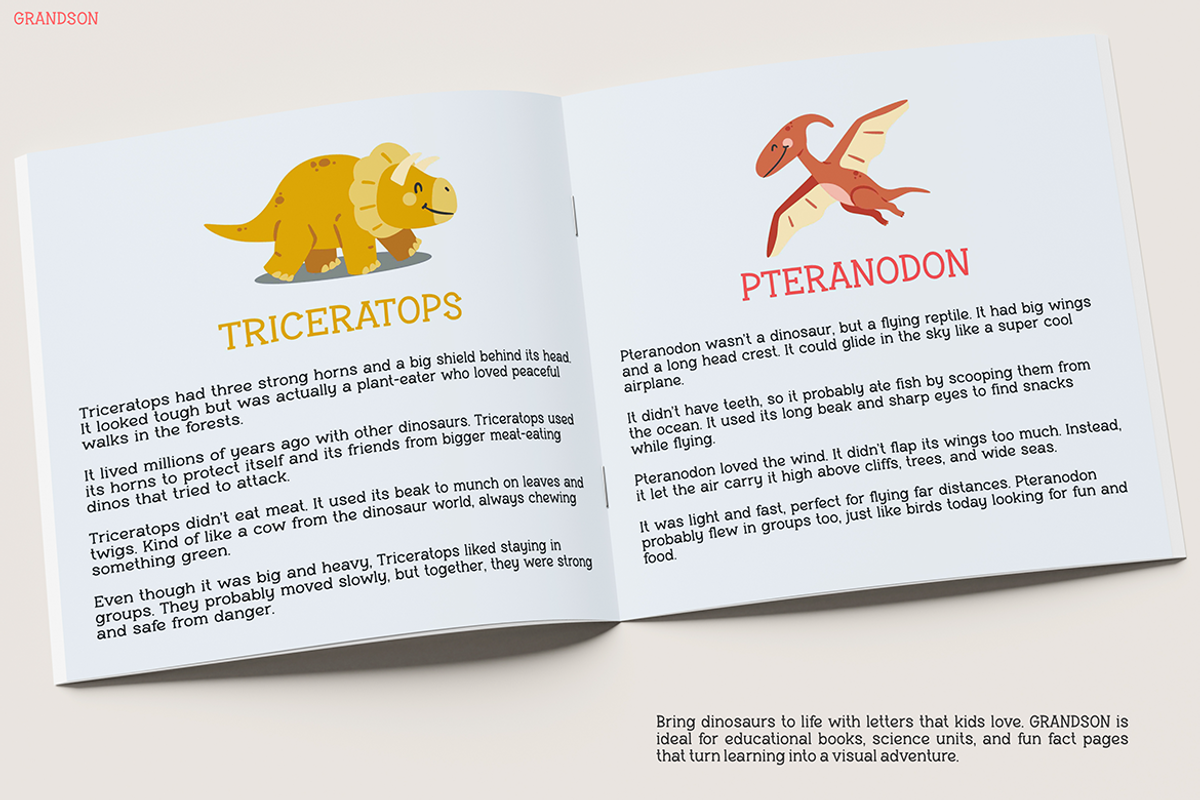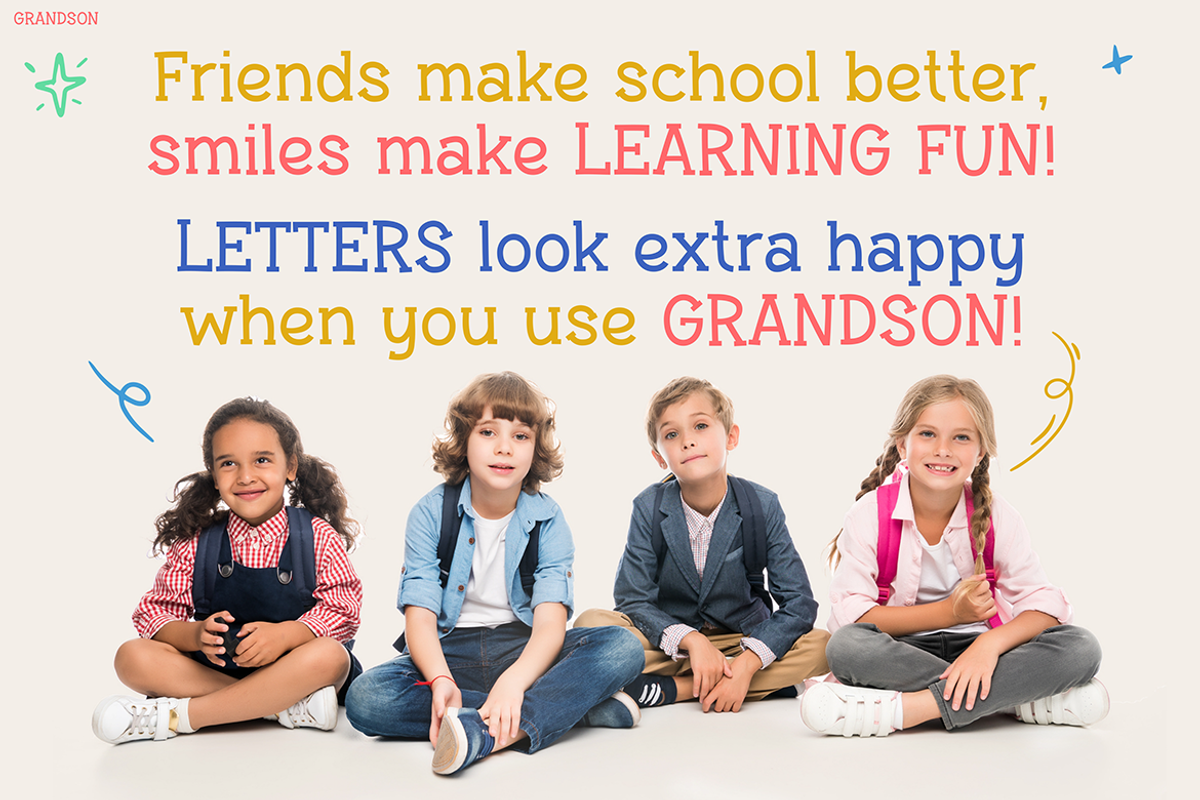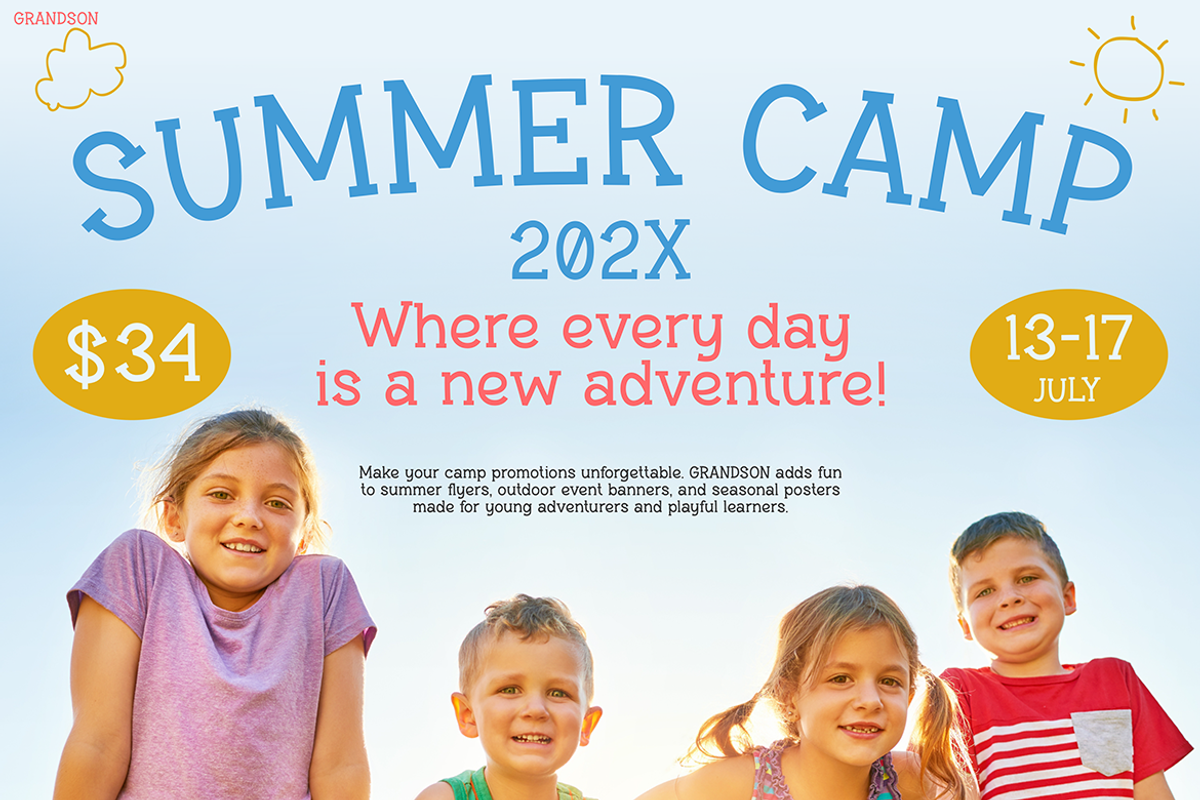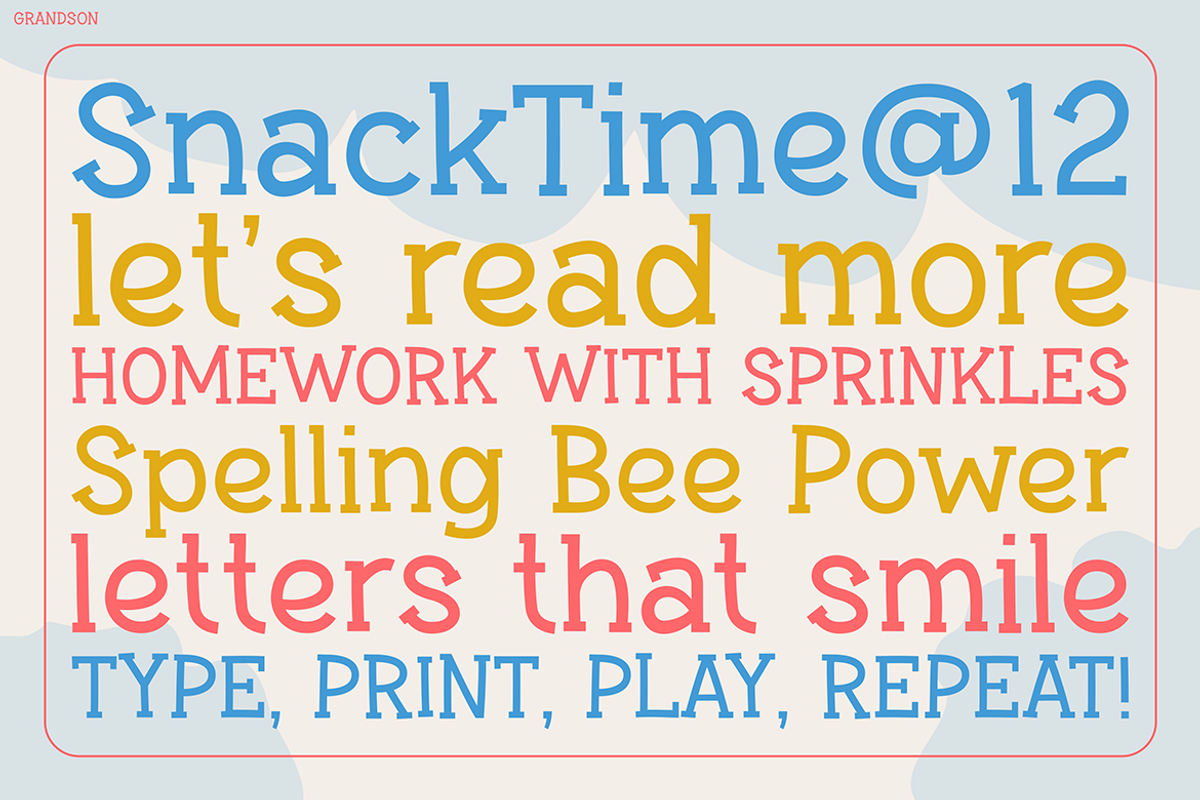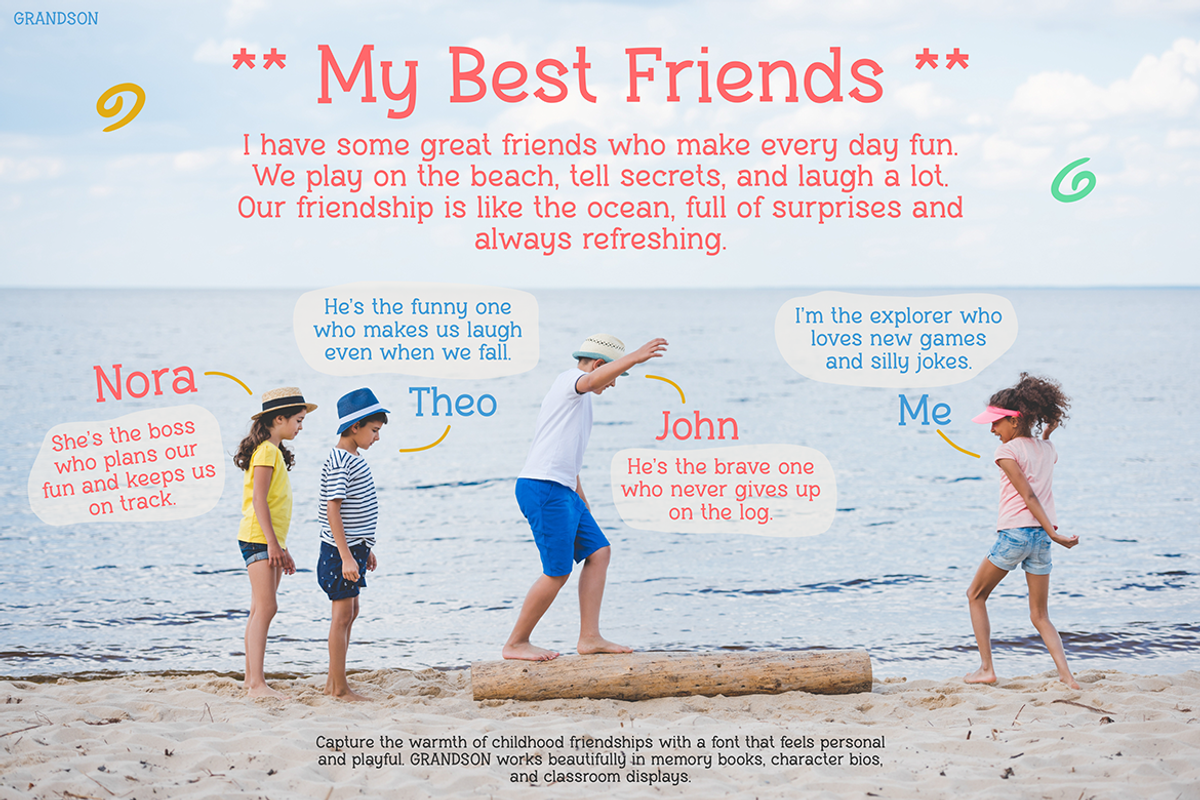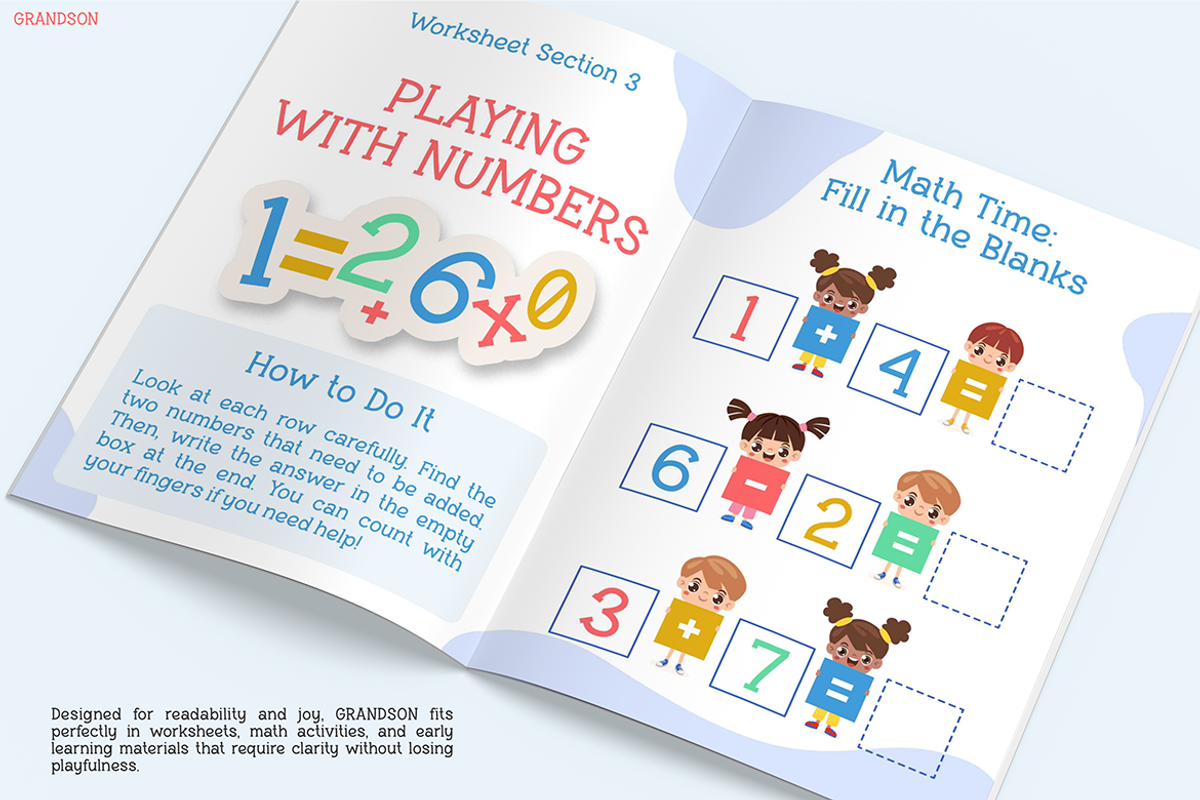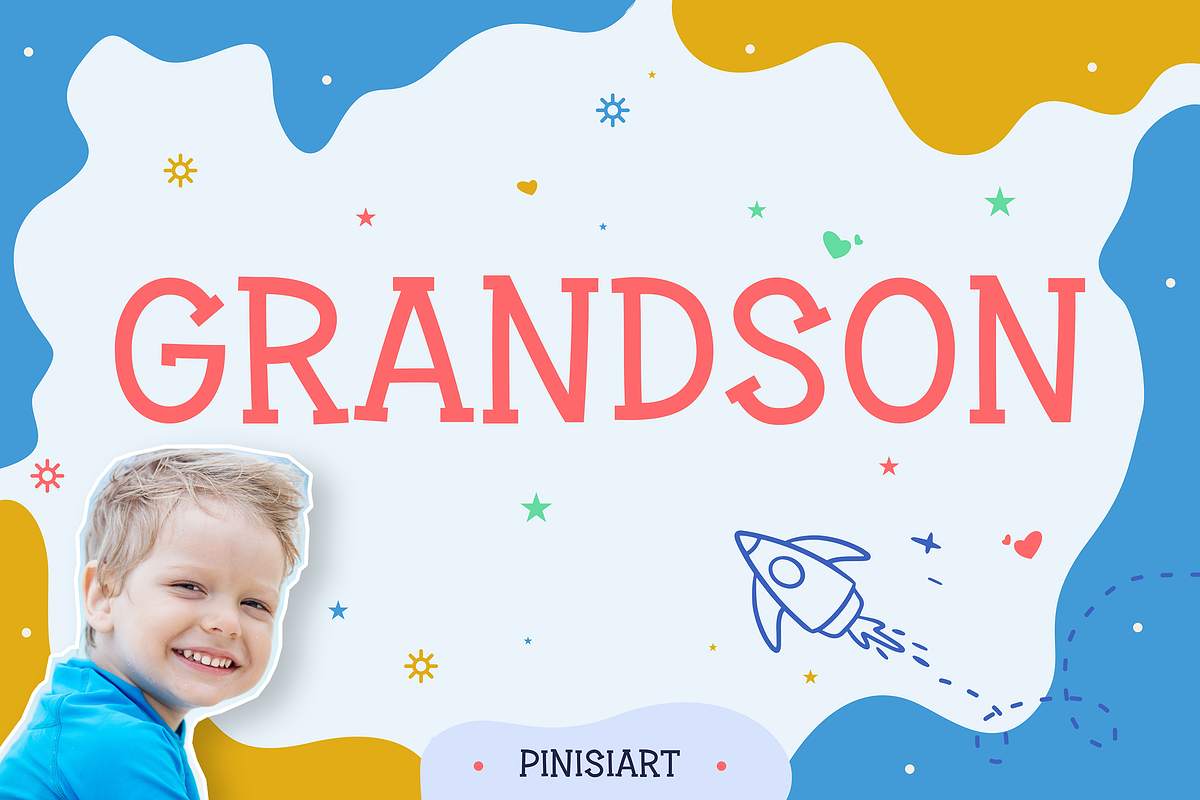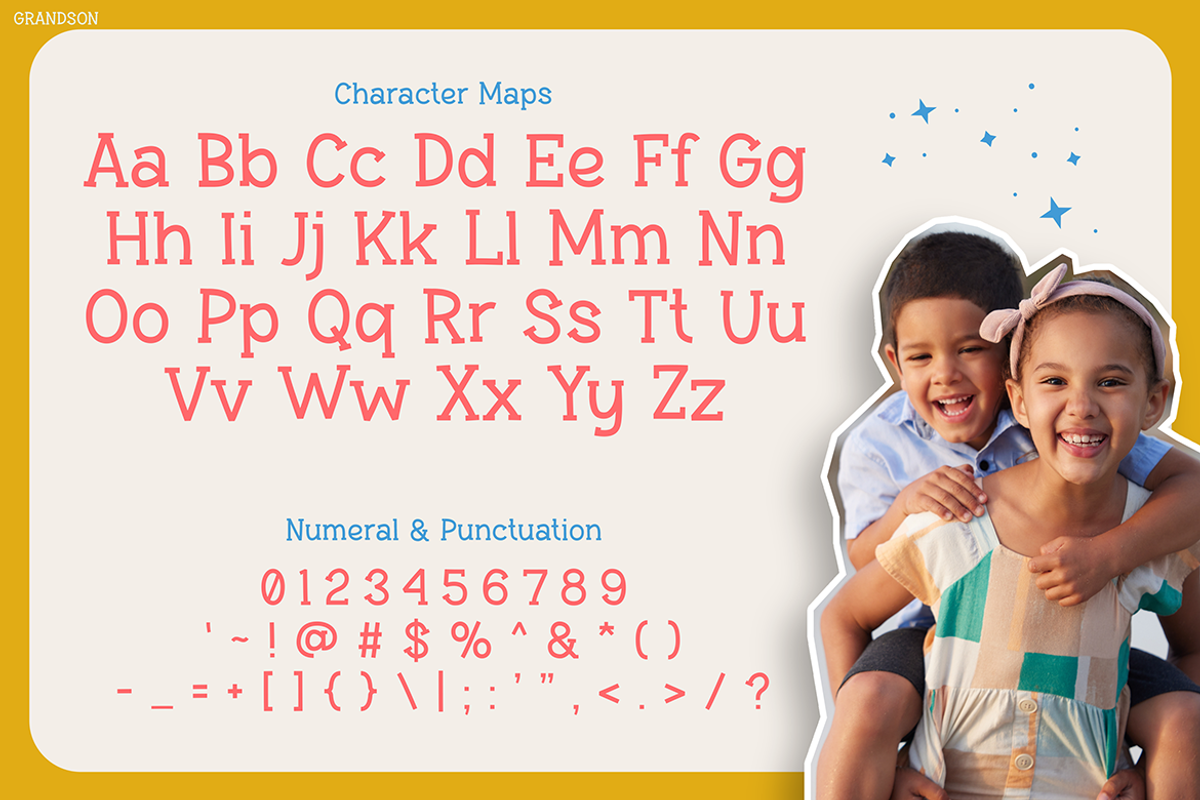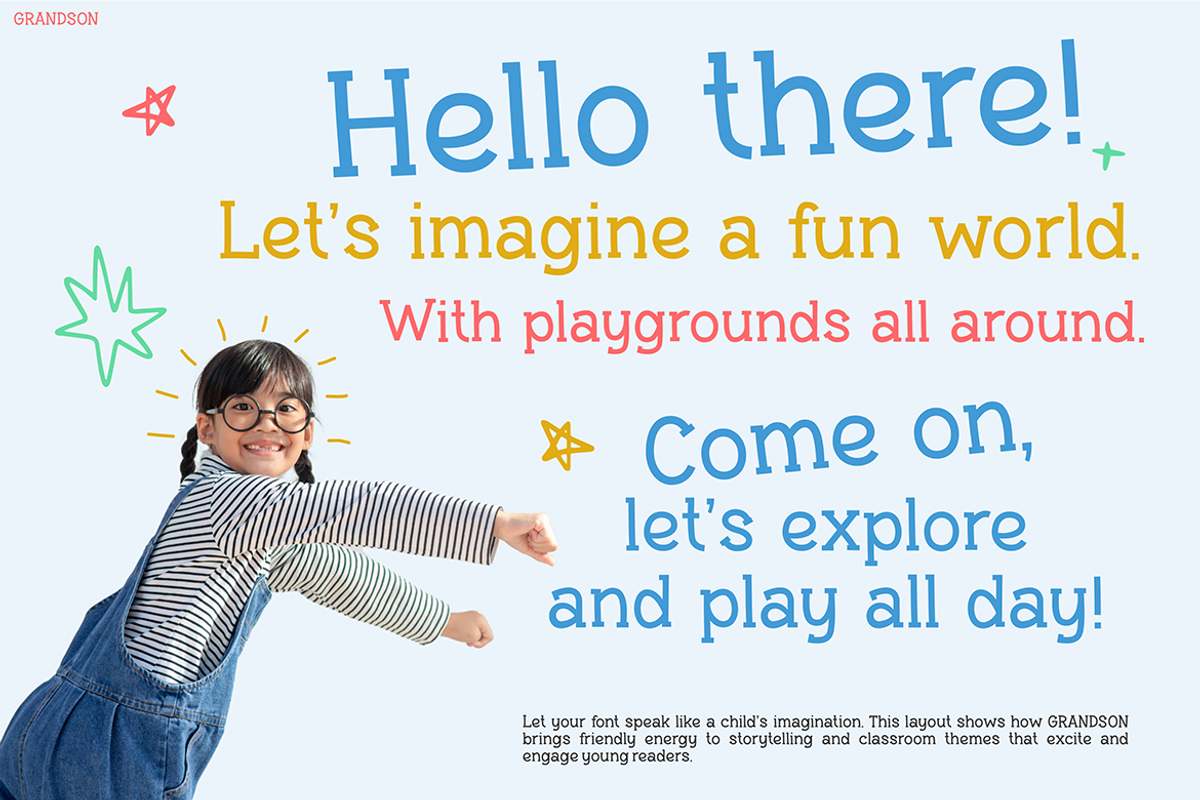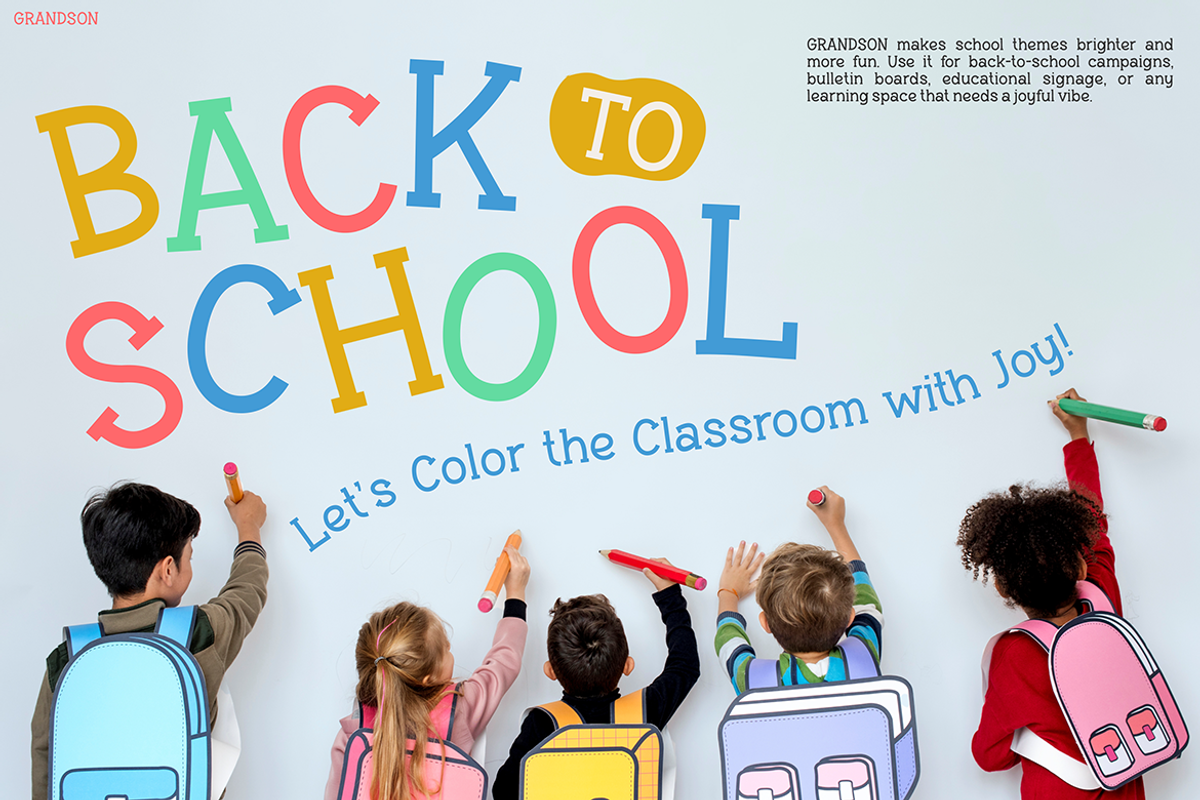
Grandson
Kids Font Grandson is the perfect way to add joy and color to any kid-friendly design. This playful typeface features hand-drawn charm and vibrant character, making it a standout choice for engaging young audiences. Each letter feels like it’s been sketched with excitement, full of energy and fun. Because of this, it adds life and personality to your message. Whether you’re creating a back-to-school poster or a playful activity sheet, this font turns ordinary text into something magical.
What makes Kids Font Grandson unique is its balance between structure and spontaneity. The letterforms are clean enough for easy reading but still full of quirky, joyful twists. For example, curves are rounded and soft, while some characters bounce slightly above or below the baseline. These details give the font a spontaneous, imaginative feel—perfect for capturing a child’s attention. Additionally, it uses cheerful colors and layout-friendly shapes, allowing you to mix and match easily with creative designs. This font doesn’t just look good—it functions beautifully too.